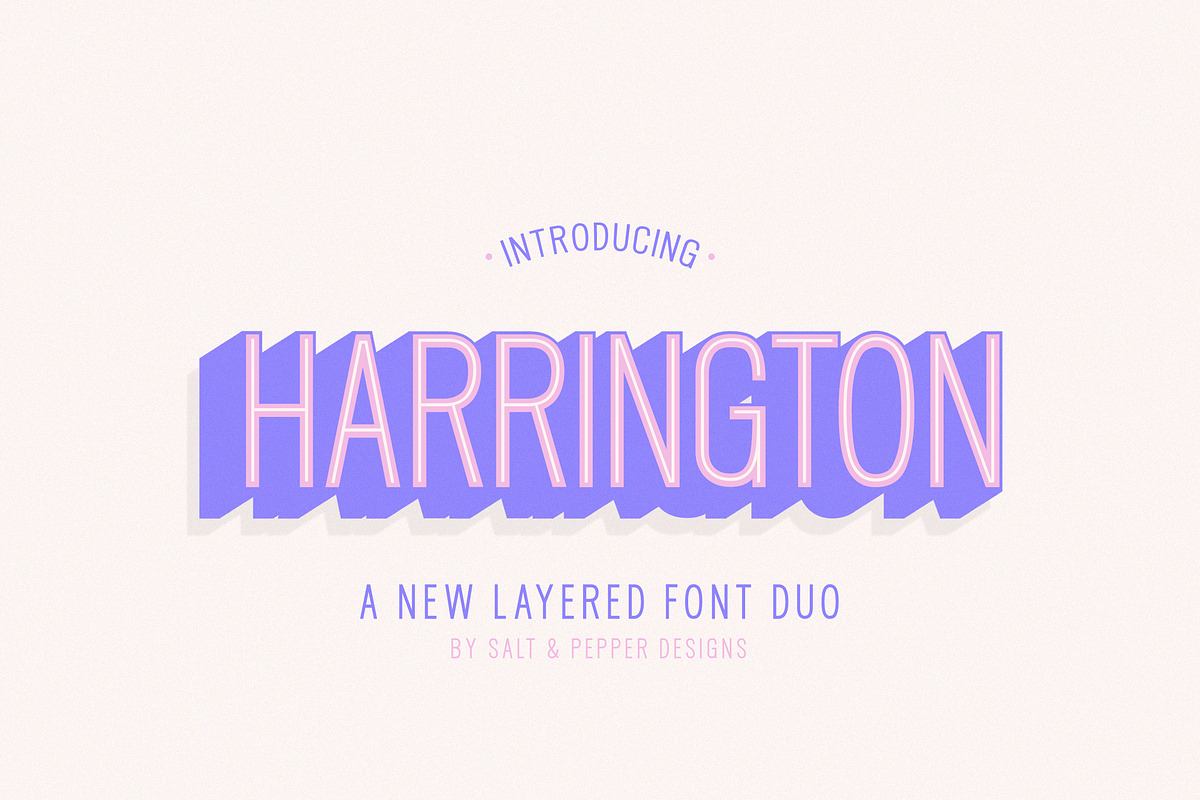
Harrington Layered Font Family Free Download
Harrington Layered Font Family Free Download is a versatile and stylish typeface system designed to bring depth and dimension to your creative work. Featuring multiple layers—including shadow, outline, and fill styles—this font family allows you to create rich, eye-catching typographic effects perfect for posters, signage, packaging, and retro-inspired branding.
With its vintage charm and modern structure, Harrington balances decorative flair with readability. It’s ideal for designers who want to craft bold headlines, standout logos, or dynamic visuals that pop. Each style in the layered set can be used individually or stacked for maximum impact, giving you full control over your design aesthetic.